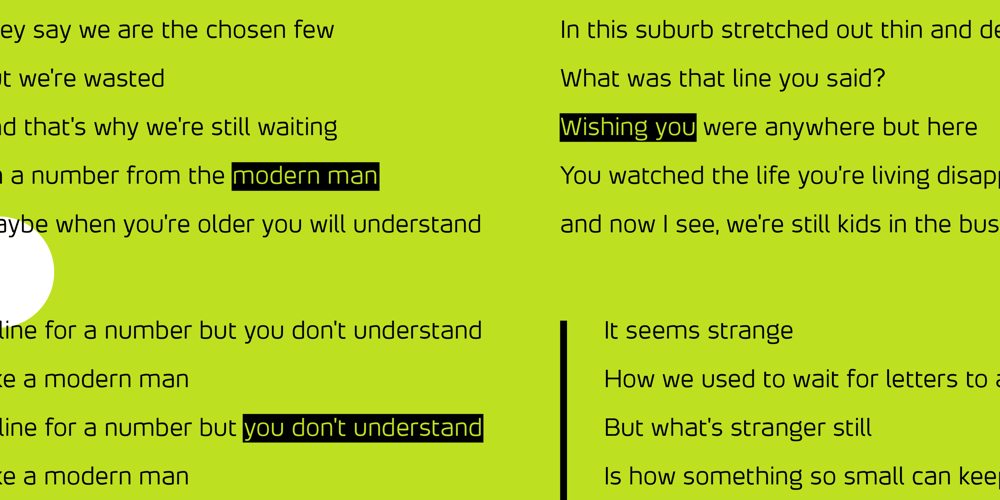
New Ways
New Ways font
New Ways Font Family was designed by Leonardo Ratzlaff, Gabriel Ratzlaff and published by Ratzlaff Type. New Ways contains 4 styles and family package options. New Ways is a modern sans font family designed to ensure readability and clearness suiting branding, editorial and advertising projects.